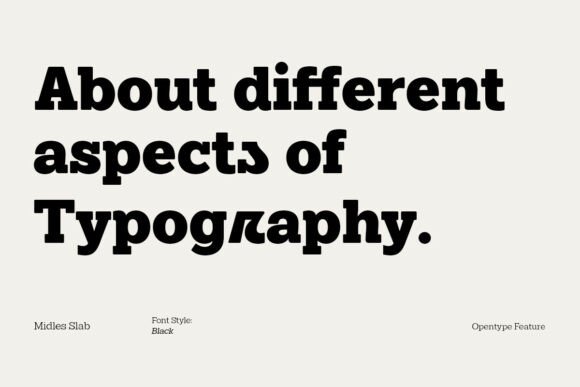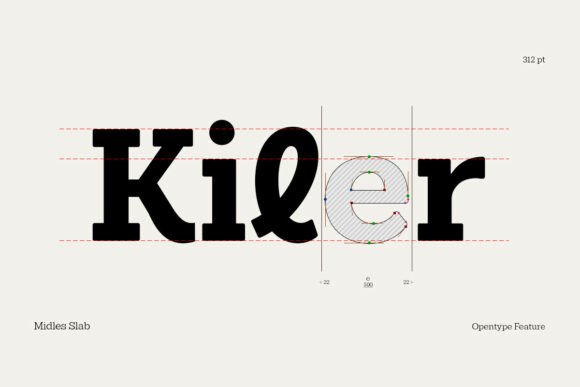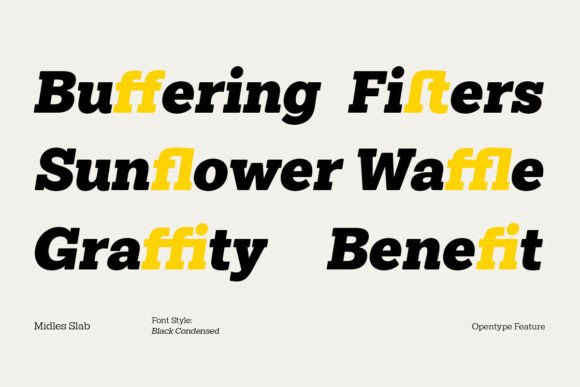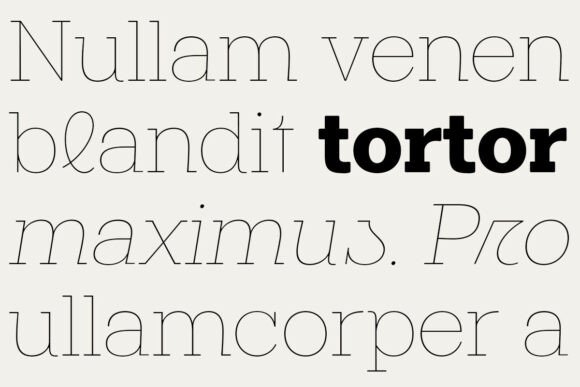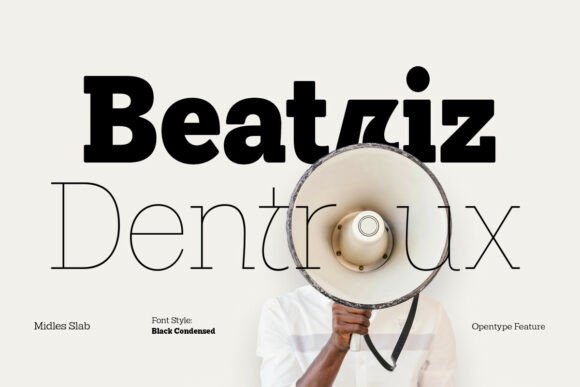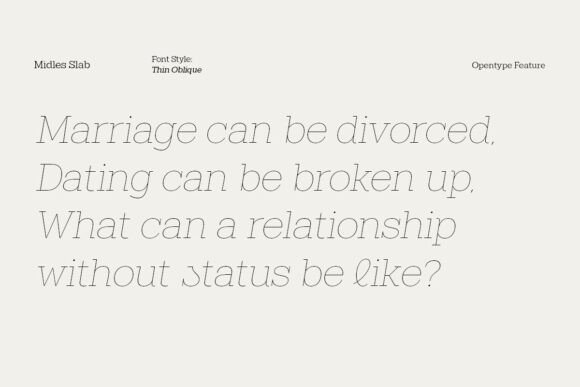
Discovering the Perfect Design Resource: Midles Slab Font
Remember that moment when you’re working on a creative project and you just can’t seem to find the right font to match your vision? You scroll through endless options, but nothing seems to capture the essence of your design. Well, we’re here to tell you that your search is over with the introduction of Midles Slab Font. This bold and confident slab serif font is designed to make a statement, blending classic strength with modern clarity.
Whether you’re working on a tech startup brand or a vintage-style label, Midles Slab Font offers exceptional legibility and a timeless aesthetic. With its strong geometric shapes, thick serifs, and versatile structure, this font is perfect for headlines, editorial design, branding, posters, and product packaging. It’s a high-quality design resource that stands out in both print and digital formats, offering impact without sacrificing style.
Key Features of Midles Slab Font
- Unique slab serif design adds a touch of elegance to any project
- Perfect for use in logos, headings, and titles in various creative projects
Honest Review: Midles Slab Font
I recently had the chance to try out the Midles Slab Font, and I’m excited to share my thoughts on this design resource. Overall, I found it to be a solid choice for my creative project.
- ✨ High-quality font with crisp lines and clear typography
- ✨ Supports a range of languages, making it a great option for global design projects
- ⚠️ Limited customization options, which may be a drawback for designers who like to experiment with font styles
- ⚠️ Not as many weight variations as some other fonts, which can be a limitation for certain design projects
Overall, I’d say the Midles Slab Font is a great addition to any designer’s toolkit. While it may not offer the most extensive range of features, its high quality and ease of use make it a solid choice for a wide range of creative projects.
Common Use Cases for Midles Slab Font
The Midles Slab Font is ideal for creative projects, such as logos, brochures, and business cards. Its high quality and unique design make it a great addition to any design project.